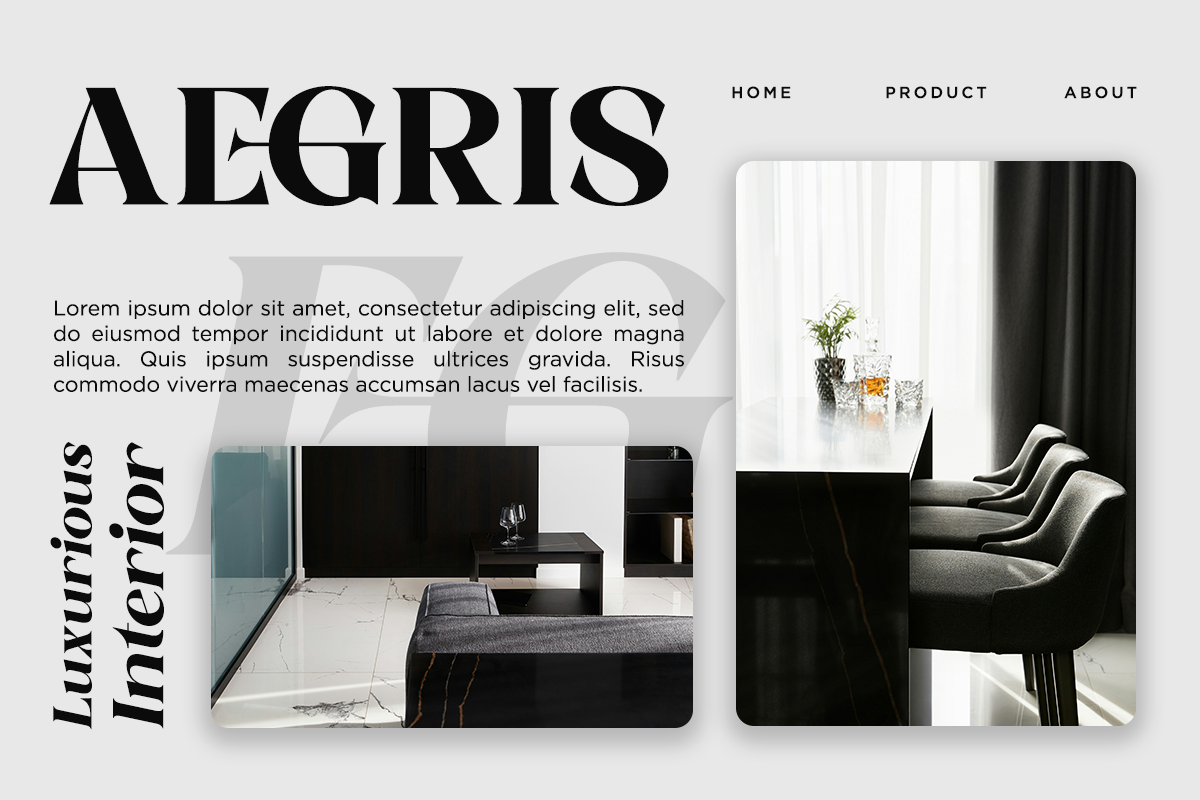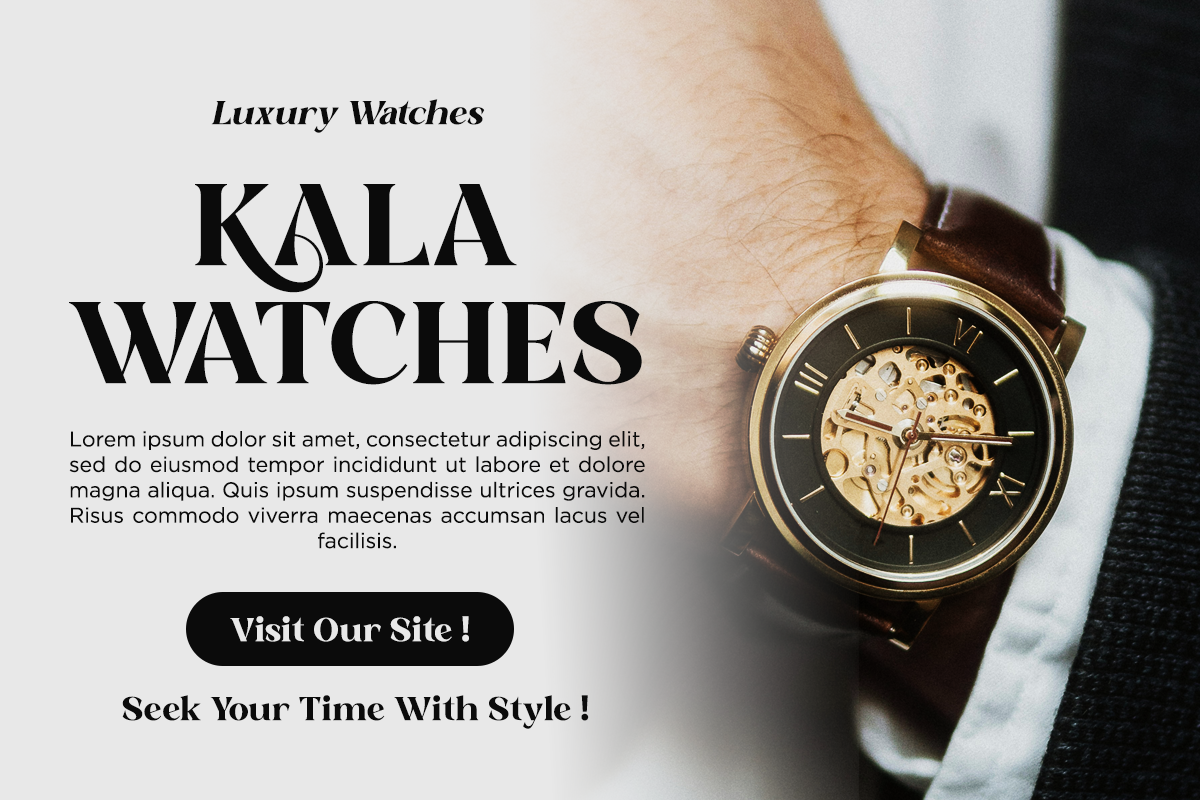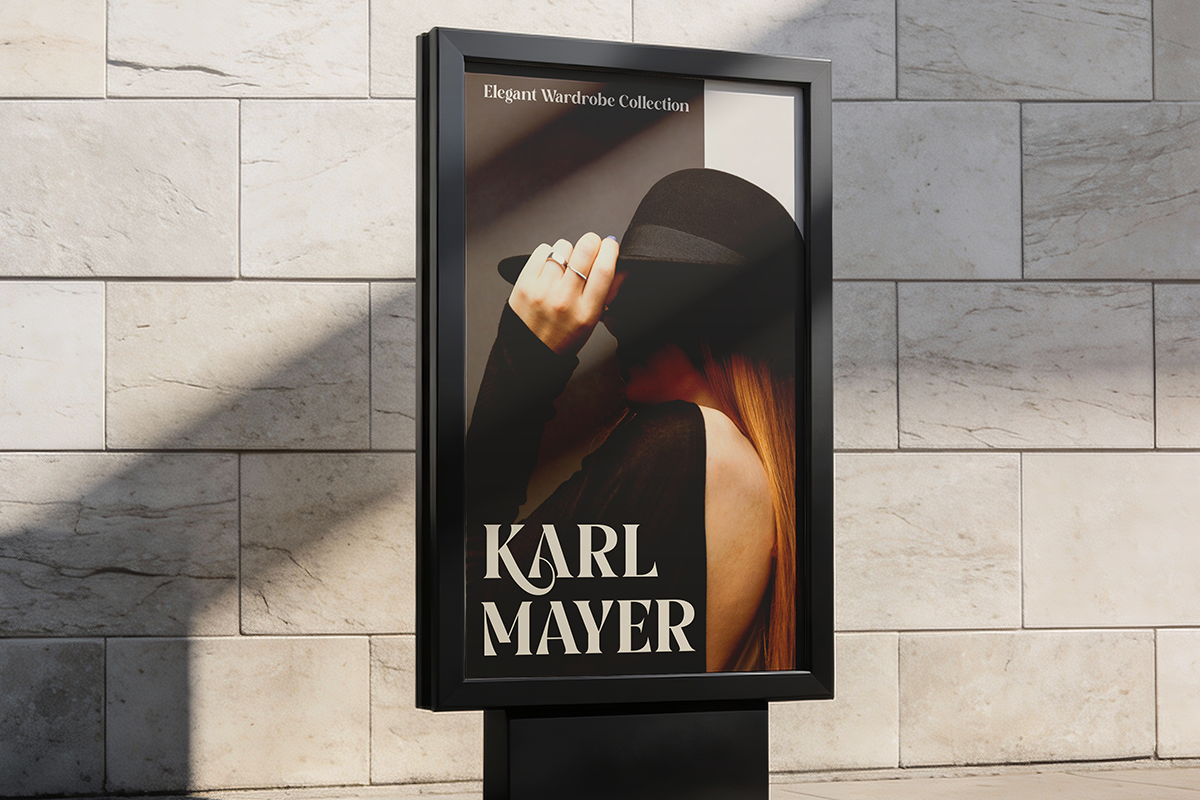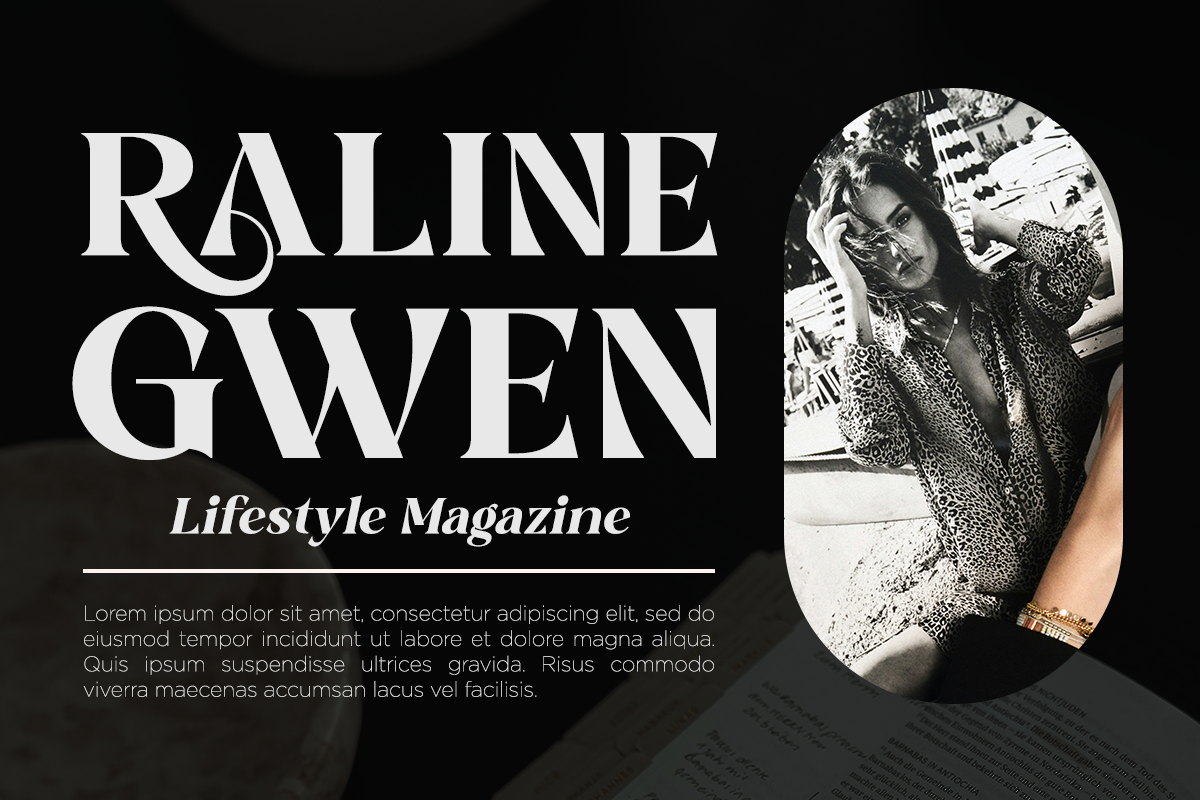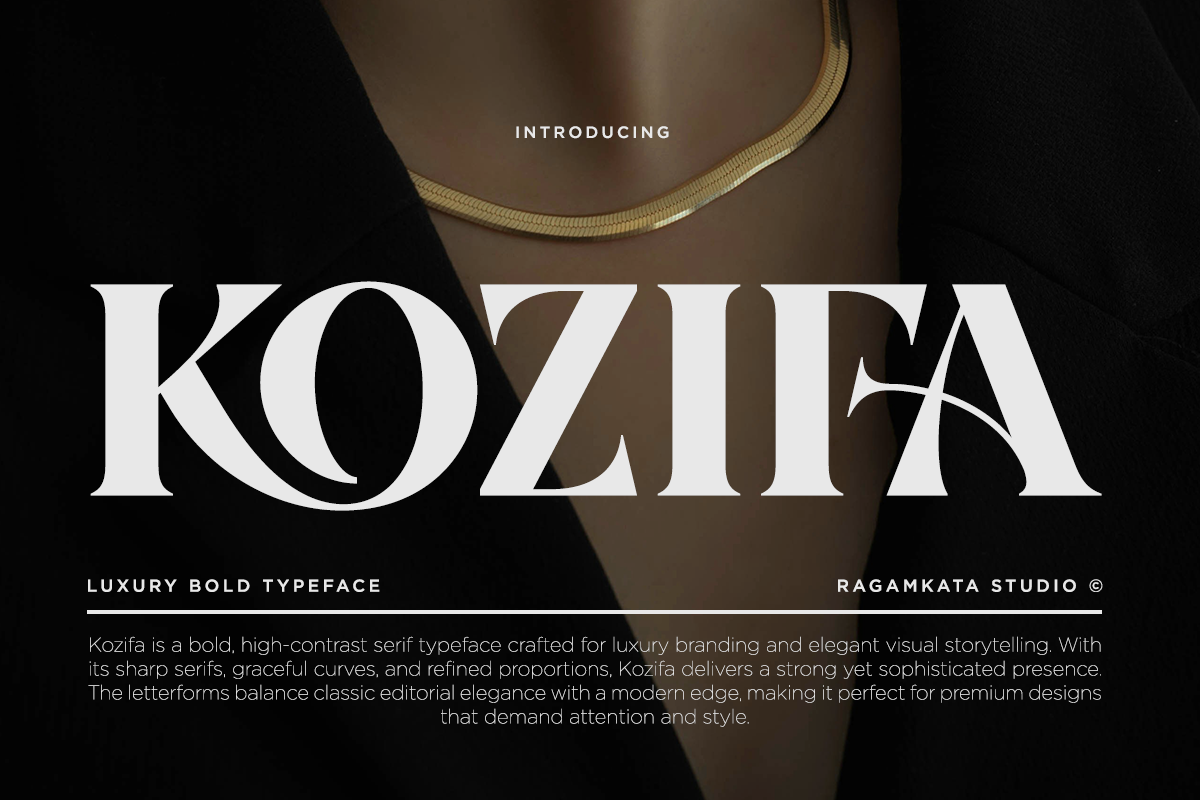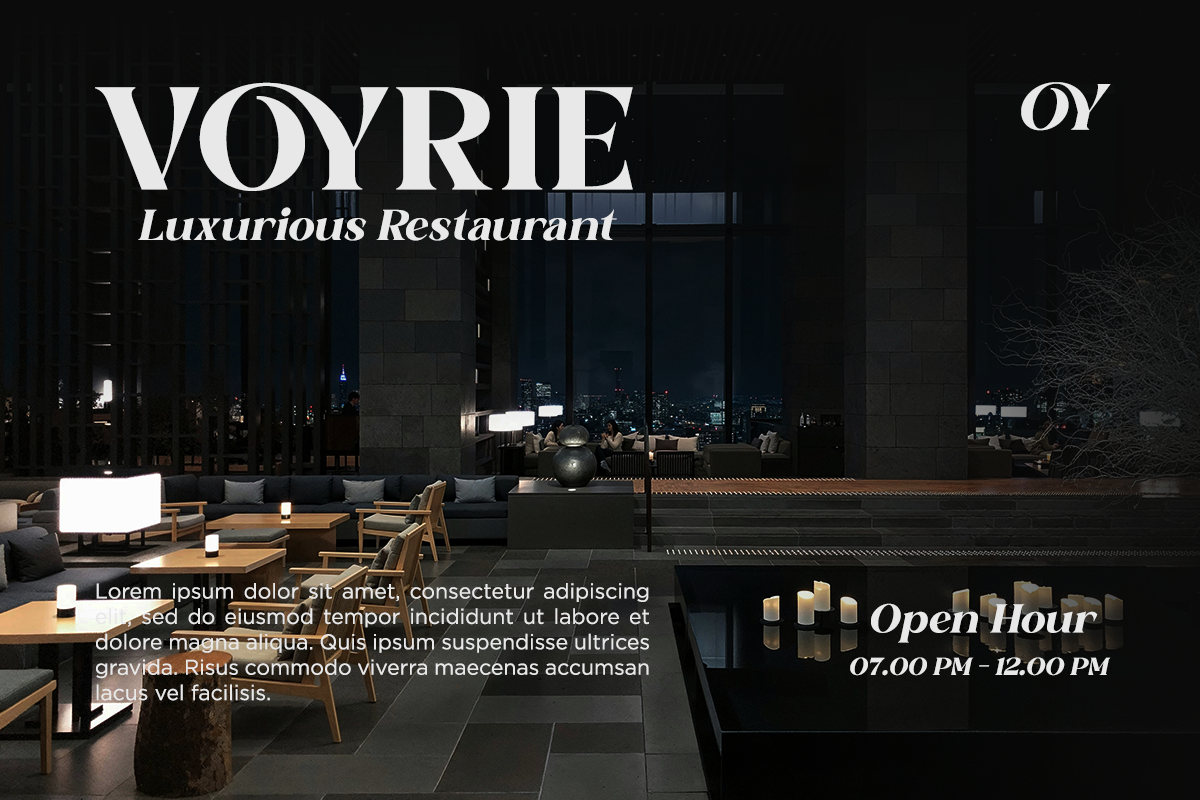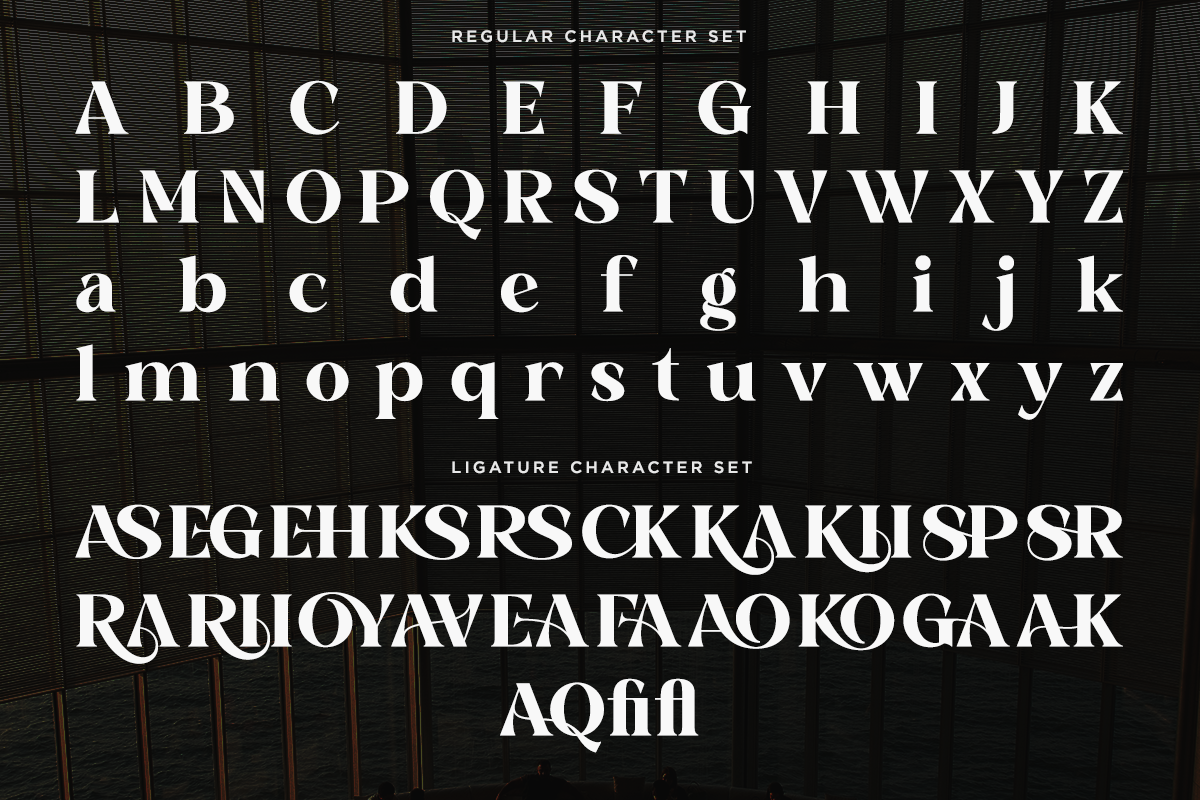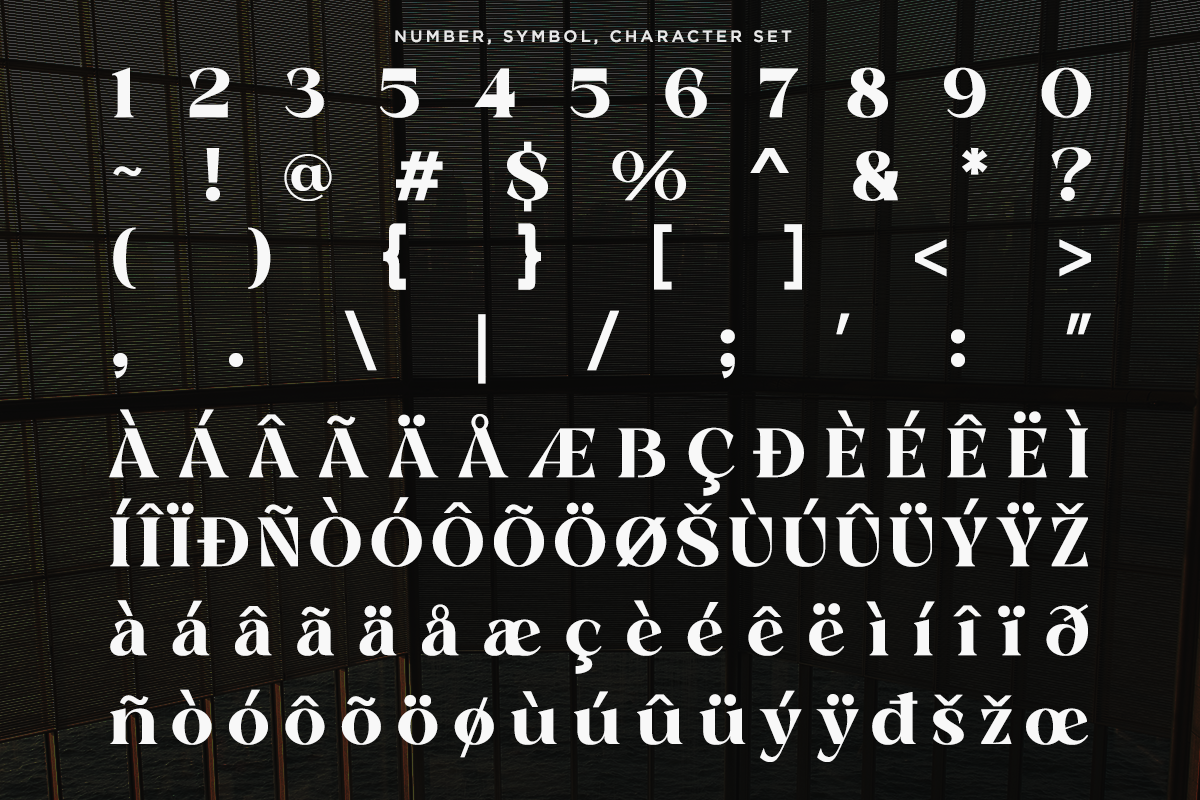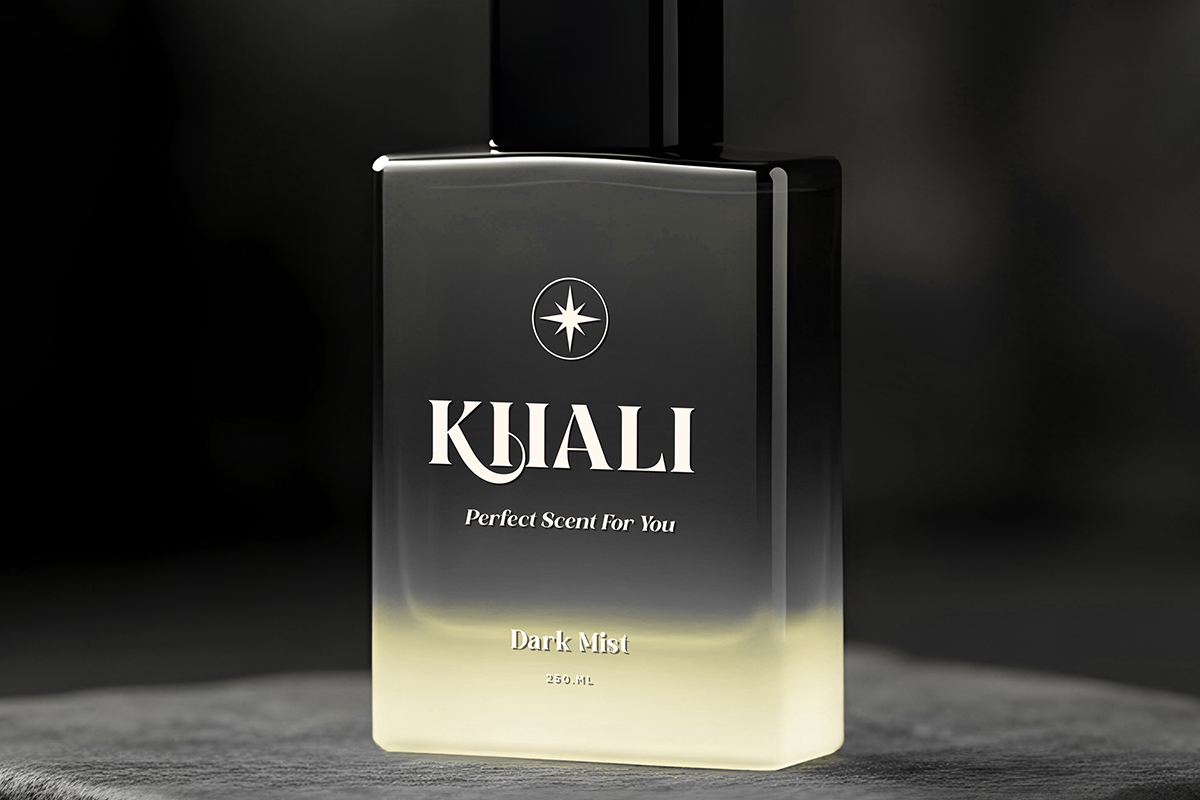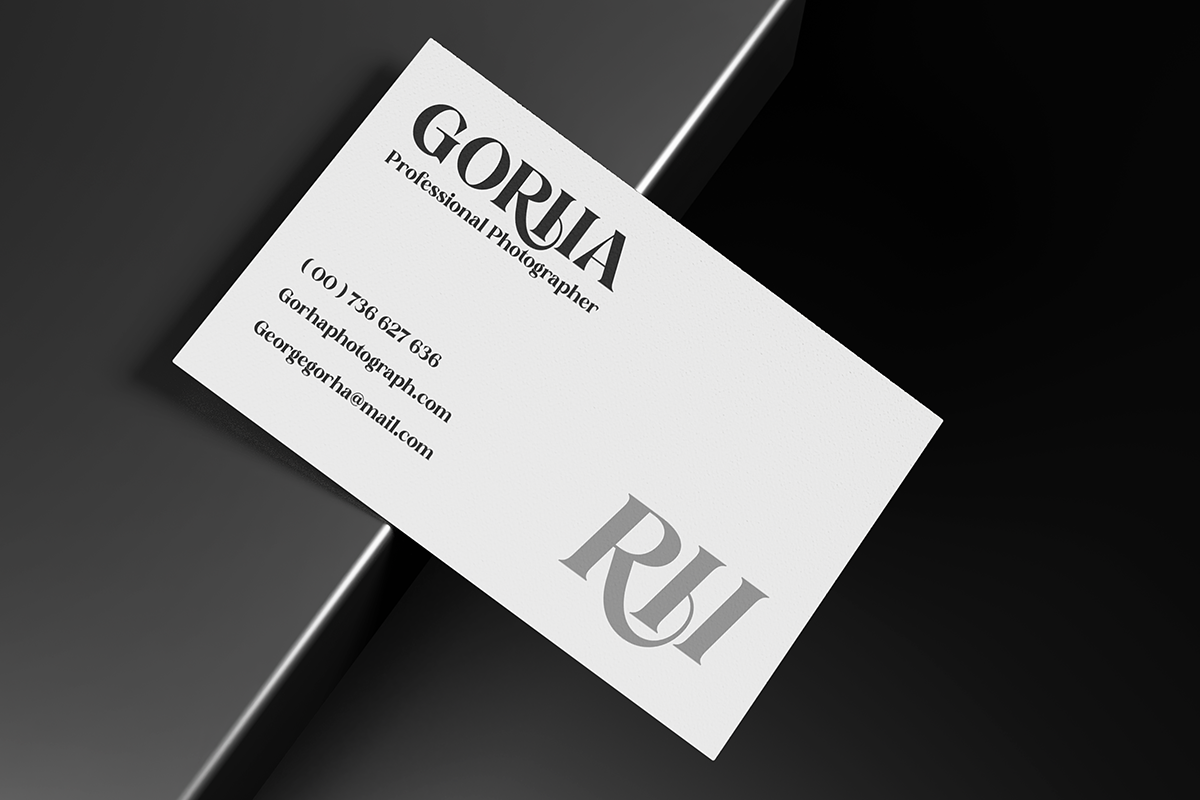
Kozifa – Luxury Bold Typeface
Kozifa is a bold, high-contrast serif typeface crafted for luxury branding and elegant visual storytelling. With its sharp serifs, graceful curves, and refined proportions, Kozifa delivers a strong yet sophisticated presence. The letterforms balance classic editorial elegance with a modern edge, making it perfect for premium designs that demand attention and style. This font is good for Luxury logos, fashion branding, magazine headlines, editorial layouts, perfume and jewelry packaging, wedding invitations, premium product packaging, cinematic titles, social media branding, high-end posters, etc.
- Stylish Ligature Set
- Number, and Symbol
- Multilinlgual Support